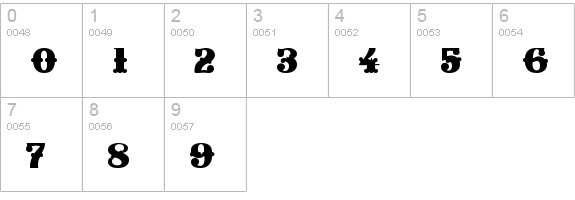
Home Style Fill Font Details
Introducing Home Style Fill font - a charming and elegant typeface that exudes warmth and sophistication. With its smooth lines and stylish design, Home Style Fill is the perfect choice for adding a touch of class to your projects. This versatile font is ideal for a wide range of applications, from logos and branding to invitations and social media graphics. What sets Home Style Fill font apart is its unique blend of modernity and classic charm, making it a standout choice for those looking to make a statement with their typography. The soft fill within each letter adds a subtle dimension that catches the eye and adds a touch of whimsy to any design. Best of all, Home Style Fill font is available for free download at FontsMarket.com, making it accessible to designers of all levels. Whether you're working on a personal project or creating designs for clients, this font is sure to elevate your work and leave a lasting impression. Download Home Style Fill font today and unleash your creativity with this beautiful typeface.